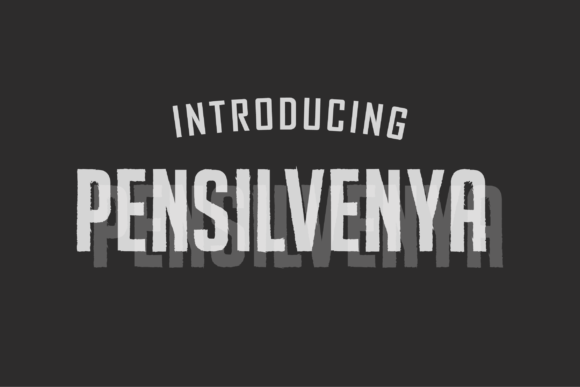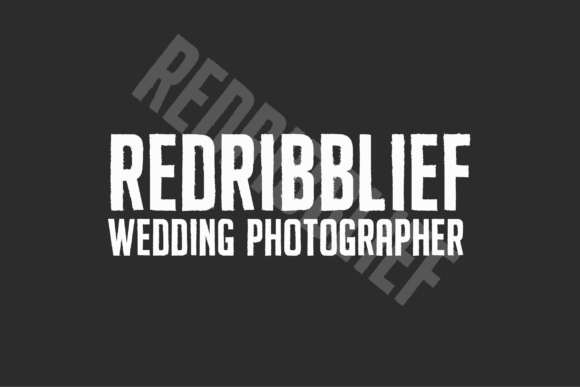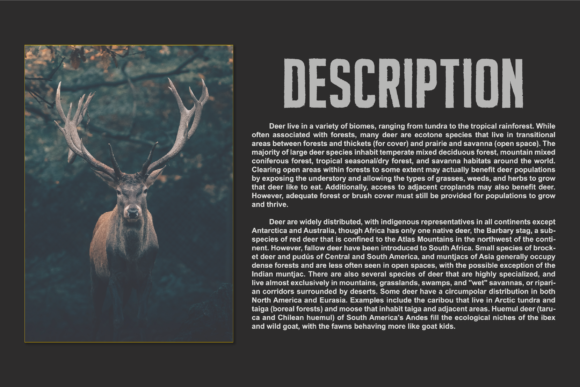
Pensilvanya Font
Pensilvanya is a strong, sophisticated, and dirty sans serif. Inspired by the mountains, its strong, uncompromising style is felt through controlled lettering and a modern touch. Pensilvanya works great in any branding, logos, magazines, and much more. The different weights give you full range to explore a whole host of applications, while the outlined fonts give a real modern feel to any project.